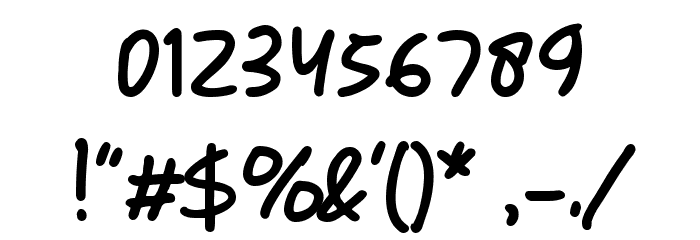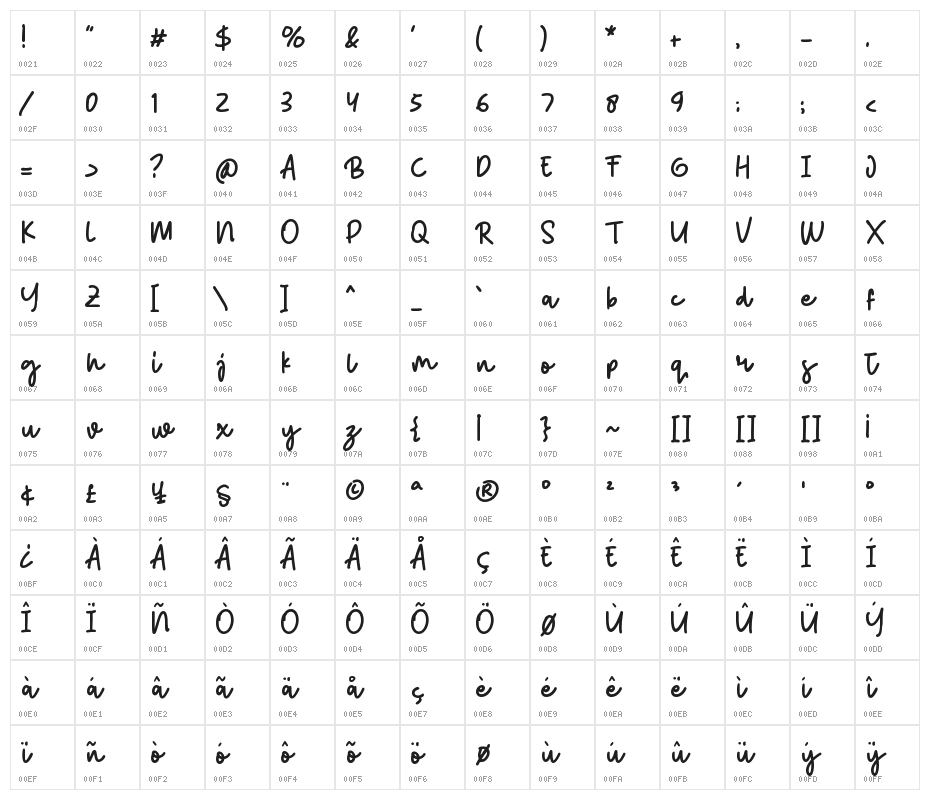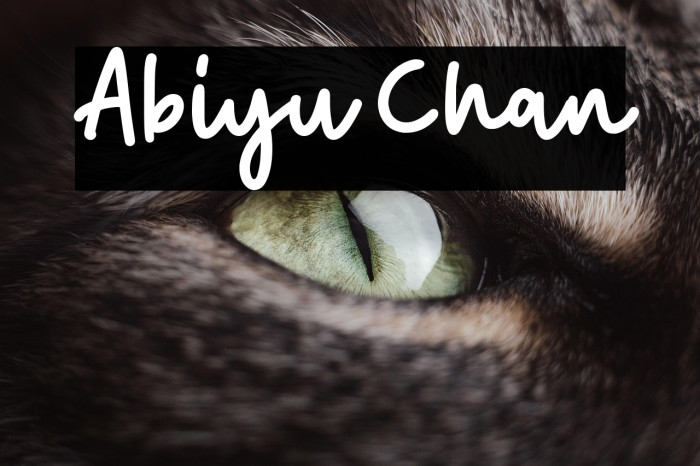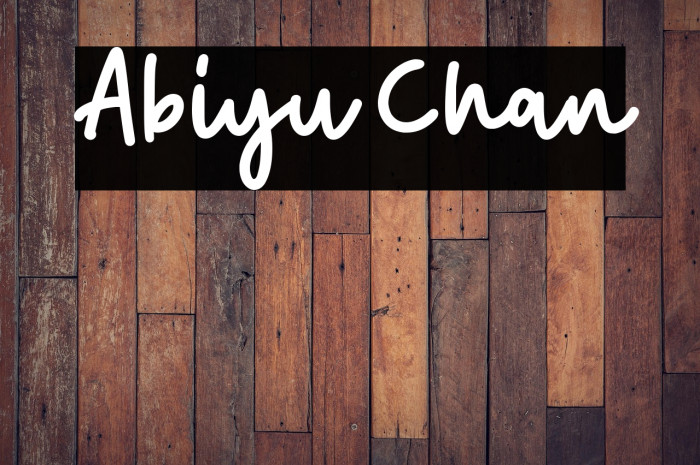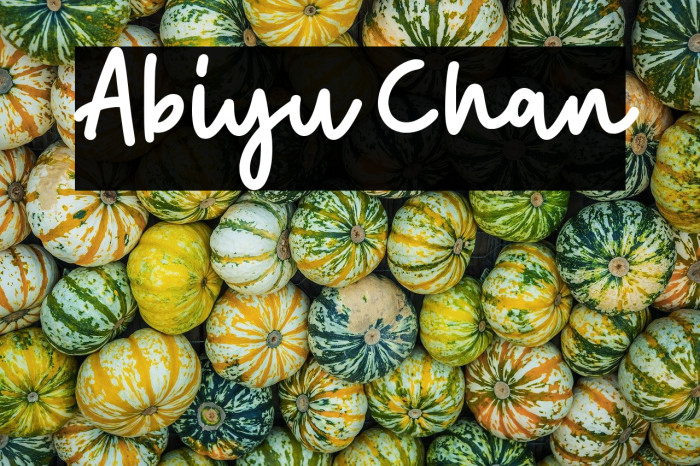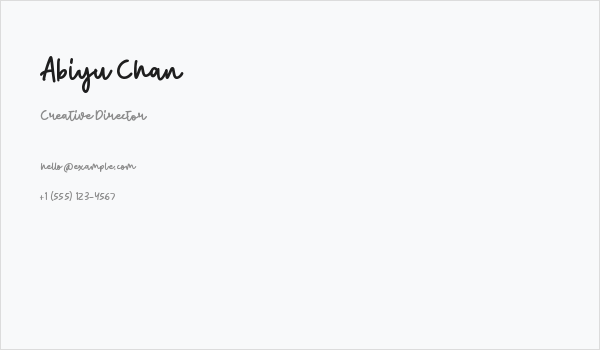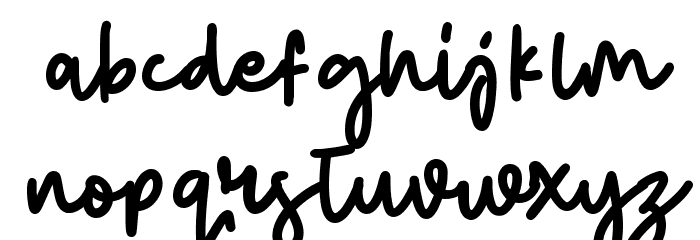
Abiyu Chan Font
Abiyu Chan Description
This playful and energetic font features a handwritten style with a casual, informal appearance. The letters are bold and slightly irregular, giving a sense of spontaneity and creativity. The uppercase and lowercase letters maintain a consistent flow, with rounded edges and smooth curves that enhance its friendly and approachable look. The numerals and special characters follow the same style, ensuring uniformity across all characters. This font is ideal for projects that require a personal touch or a fun, lively vibe.
| Proposed Projects | Great for greeting cards, children's books, playful branding, and social media graphics. |